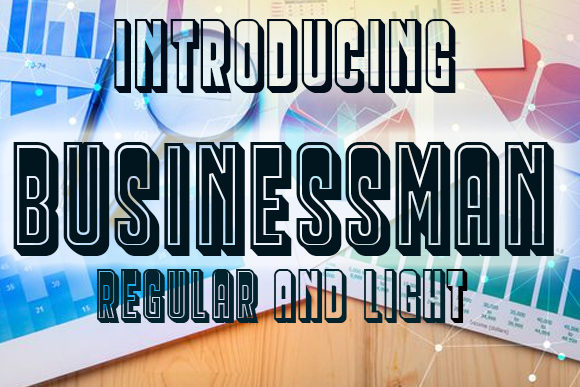
The Ultimate Guide to Businessman Font: Elevate Your Designs with a Retro Twist
I’ll never forget the time I was working on a project for a vintage-themed restaurant, struggling to find the perfect font that would transport customers back in time. The client was adamant about achieving a retro look, and I was determined to deliver. That’s when I stumbled upon the Businessman font – a fancy 3D font with a retro vibe that instantly caught my attention. In this article, I’ll share my experience with Businessman font, its features, and how to make the most of it in your designs.
Businessman Font: A Retro Revival
Businessman font is a stunning 3D font that comes in two versions: Regular and Light. Its retro look is perfect for designs that require a touch of nostalgia, such as vintage-themed posters, logos, or social media graphics. The font’s unique style is sure to make your designs stand out from the crowd.
- ✅ Unique 3D retro look that’s hard to find in other fonts
- ✅ Comes in two versions: Regular and Light, offering flexibility in design
- ✅ Supports OpenType features, glyphs, and stylistic alternates for creative freedom
- ✅ Perfect for vintage-themed designs, logos, and social media graphics
- ⚠️ Limited use in very small font sizes, as details may get lost
- ⚠️ May not be suitable for body text, as it’s designed for headlines and titles
The Businessman font was inspired by the classic typography of the 1950s and 60s, when 3D and retro styles were all the rage. The font’s designer aimed to create a modern take on these vintage styles, with a unique twist that would make it stand out in modern designs.
Q: What is the difference between the Regular and Light versions of Businessman font?
A: The Regular version of Businessman font has a thicker, more prominent 3D effect, while the Light version has a more subtle, delicate look.
Q: Can I use Businessman font for body text?
A: While Businessman font is designed for headlines and titles, it’s not recommended for body text due to its unique 3D style and potential loss of detail at small font sizes.
Q: Does Businessman font support OpenType features?
A: Yes, Businessman font supports OpenType features, glyphs, and stylistic alternates, offering creative freedom and flexibility in design.